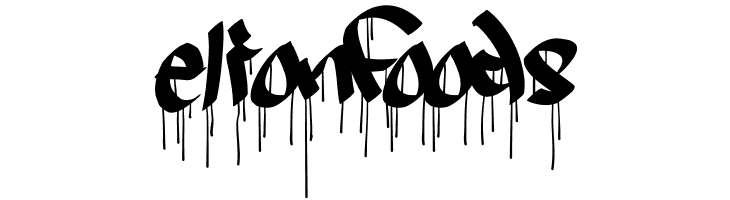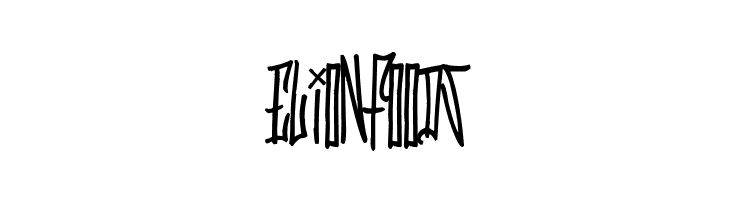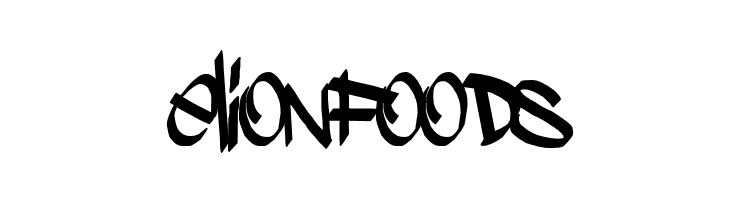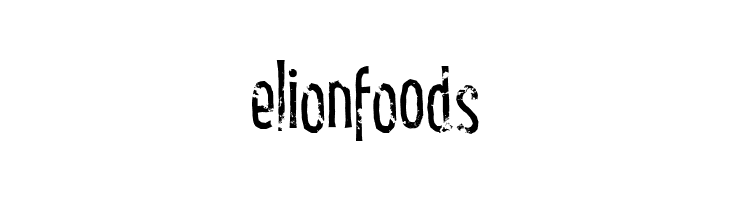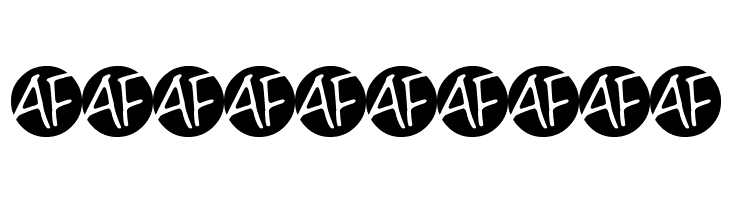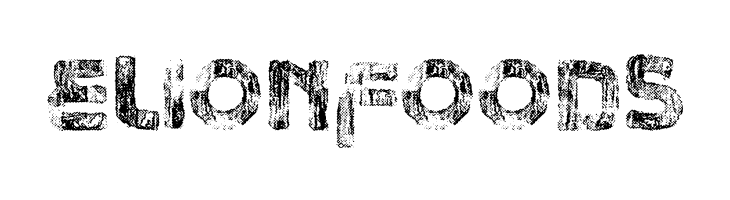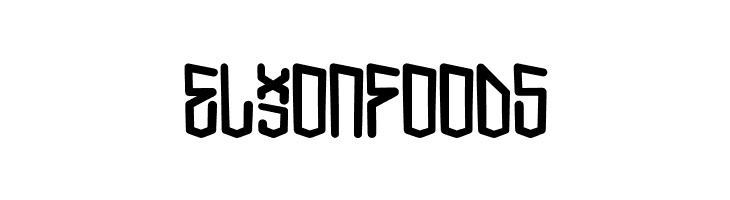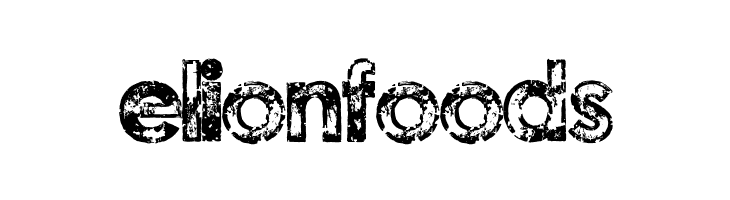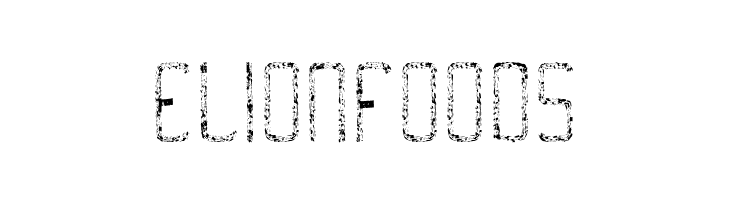
A bold, graffiti-inspired font with a dripping, rebellious style.
A bold, graffiti-inspired font with dynamic, expressive strokes.
A bold, graffiti-inspired font with angular, dynamic characters.
A distressed, grunge-style font with a textured, rugged appearance.
A bold, distressed font with a grunge, textured appearance.
A bold, distressed font with a grunge texture and rugged appearance.
A bold, geometric font with an urban, edgy style.
A bold, distressed font with a grunge, textured appearance.
A textured, distressed font with a rugged, urban feel.